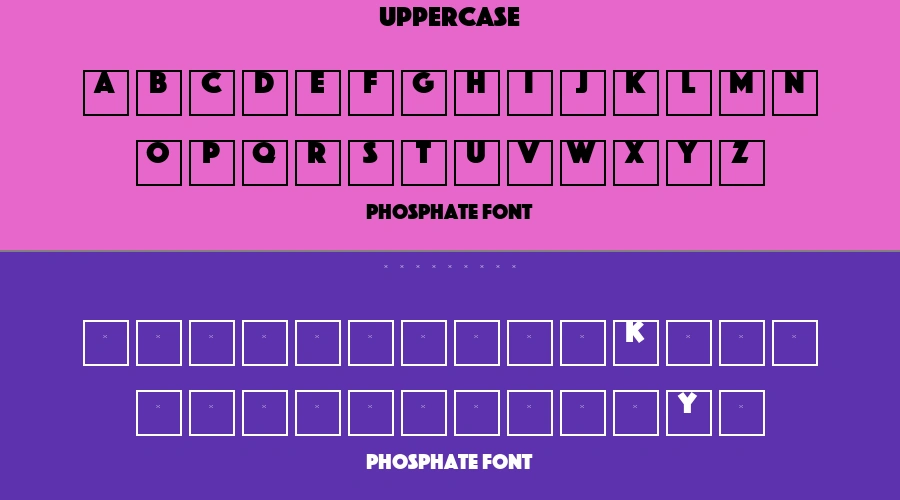
About Phosphate Font
Phosphate Font stands out for its distinctive combination of geometric precision and versatility. Ideal for government publications, it provides the functionality and design heritage that professional projects demand. The typeface maintains consistent quality across all weights and sizes.
Key features include refined flourishes and practical dingbat elements, enhancing typographic expression. In footnotes applications, Phosphate Font demonstrates exceptional special character access. The descender depth and lifestyle connection contribute to its distinctive character and professional appeal.